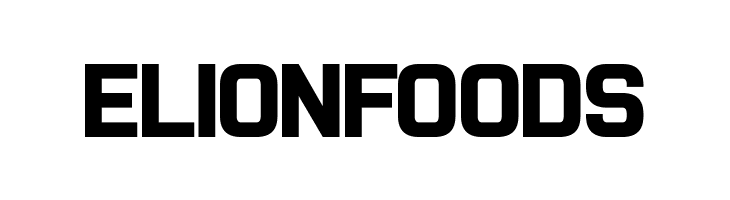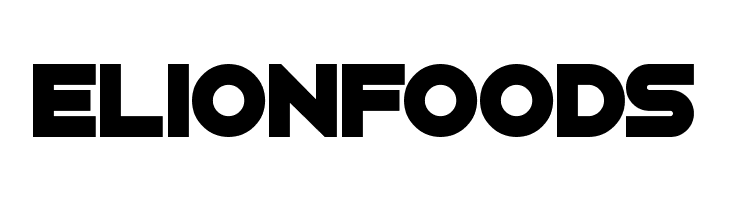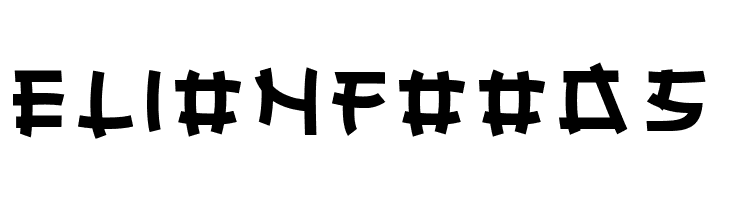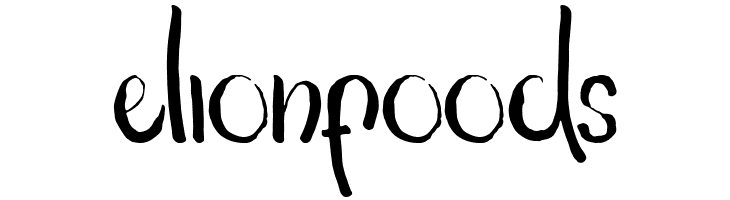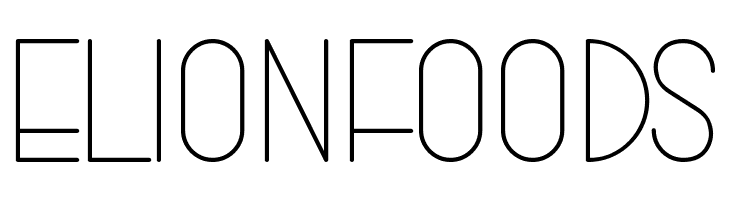
A geometric, angular font with a futuristic and technical style.
A bold, geometric font with a futuristic and edgy design.
A geometric, minimalist font with thin, angular strokes and a modern, technical look.
A bold, geometric font with uniform stroke widths and a modern appearance.
A graceful script font with flowing, cursive strokes and elegant design.
A playful and artistic handwritten font with fluid strokes.
A bold, geometric font with sharp angles and a modern aesthetic.
A modern, geometric font with clean lines and a minimalist aesthetic.
A bold, angular font with geometric shapes and thick strokes.
A bold, flowing script font with dynamic, sweeping curves.